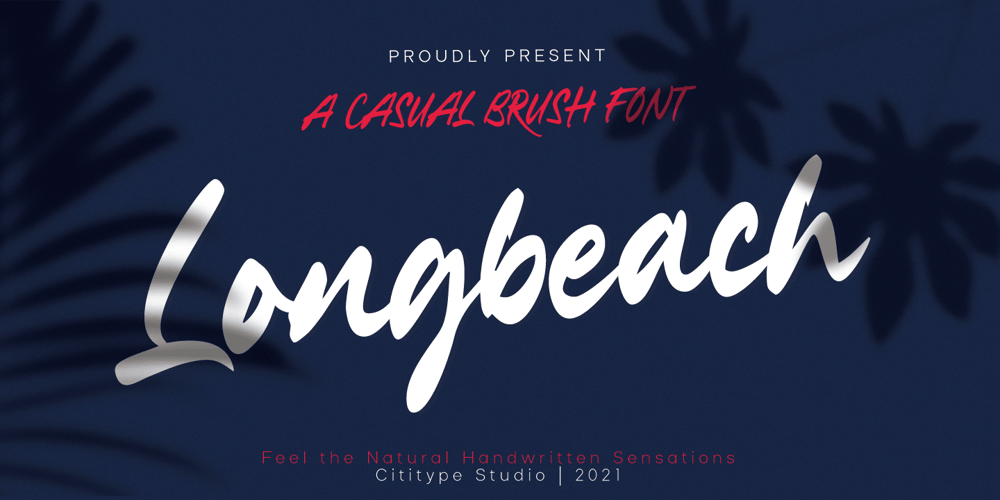
Longbeach Font Family was designed by Muhammad Ridha Agusni, Siti Saribanon Nurjannah and published by Cititype. Longbeach contains 1 styles and family package options. Longbeach is a casual yet elegant brush font, it has natural brush stroke that perfect for branding project, household appliance design, product packaging, or other wonderful design